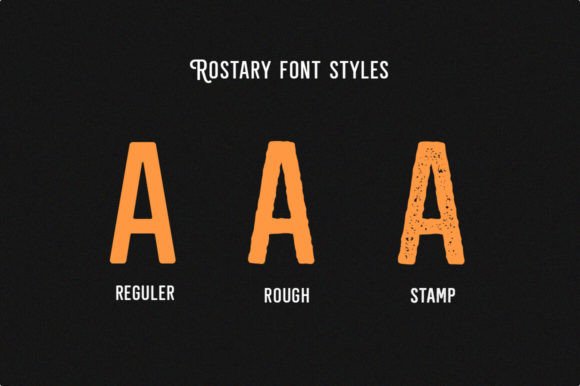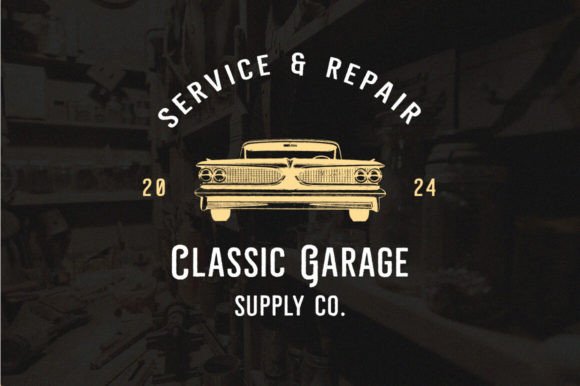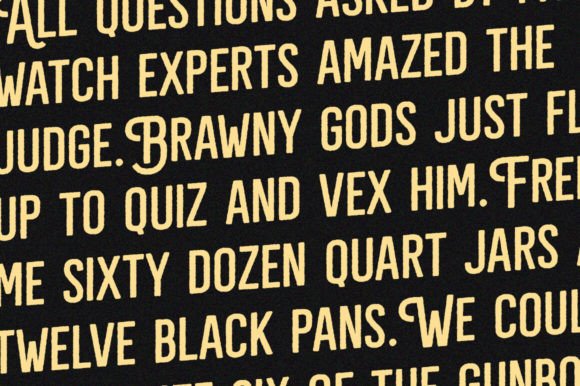
Introduction to Rostary Font
Do you remember the feeling of rummaging through your grandfather’s old trunk, discovering a treasure trove of vintage posters and labels? For designers, this nostalgia is a constant source of inspiration, driving us to create unique and timeless designs. The Rostary Font is a perfect reflection of this sentiment, transporting you to a bygone era with its modern vintage style.
With three distinct font styles – Regular, Rough, and Stamp – Rostary Font offers endless possibilities for designers to add a classic touch to their creative projects. Whether you’re working on a branding project, creating a logo, or designing packaging, this versatile font is an invaluable resource. Its high-quality design and transparent background make it easy to integrate into your designs, ensuring a seamless and professional finish.
Key Features of Rostary Font
- Unique design style with a mix of modern and vintage elements, making it perfect for creative projects.
- High-quality font with a transparent background, allowing for seamless integration into various design resources.
- Includes multiple font styles and weights, including bold, italic, and regular, to cater to various design needs.
- Perfect for designers looking for a distinctive and versatile font to elevate their design projects.
Honest Review: Rostary Font
I recently had the chance to try out the Rostary Font, a popular design resource that offers a free download for creative projects. Upon initial use, I was impressed by its sleek and modern aesthetic.
What works well: ✨ The Rostary Font features a range of styles, from bold and playful to elegant and sophisticated. It’s perfect for designers looking to add a touch of sophistication to their designs without sacrificing readability. I also appreciated the transparent background option, which made it easy to layer the font over various backgrounds.
What doesn’t work well: ⚠️ While the Rostary Font is a high-quality design resource, I did encounter some limitations. The font is not ideal for use in small text sizes, and it can be challenging to read at very low resolutions. Additionally, the font lacks some of the more advanced features that I’ve come to expect from modern fonts.
Overall, I was impressed with the Rostary Font’s clean and modern design. While it may not be the best choice for every creative project, it’s a solid addition to any designer’s toolkit.
- Range of styles to choose from
Tips for Getting the Most Out of Rostary Font
For the best results, use Rostary Font on a high-quality design resource. Experiment with different font sizes, colors, and alignments to create a visually appealing design. You can also combine Rostary Font with other design elements, such as images and shapes, to create a unique and creative project.
Rostary Font is ideal for a variety of creative projects, including logos, business cards, and social media graphics. Its transparent background feature makes it perfect for overlaying text on images or using as a design element in a free download template.